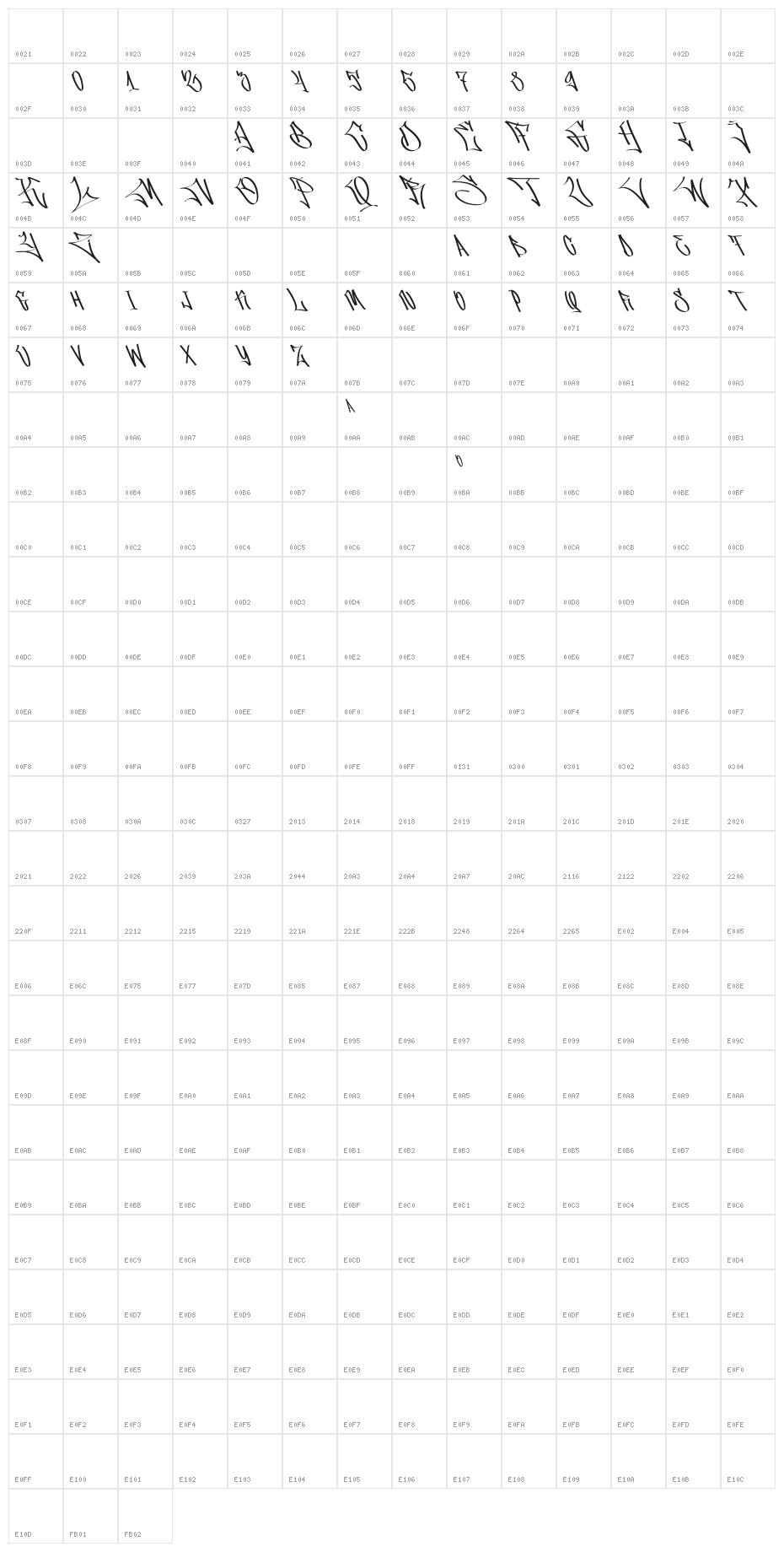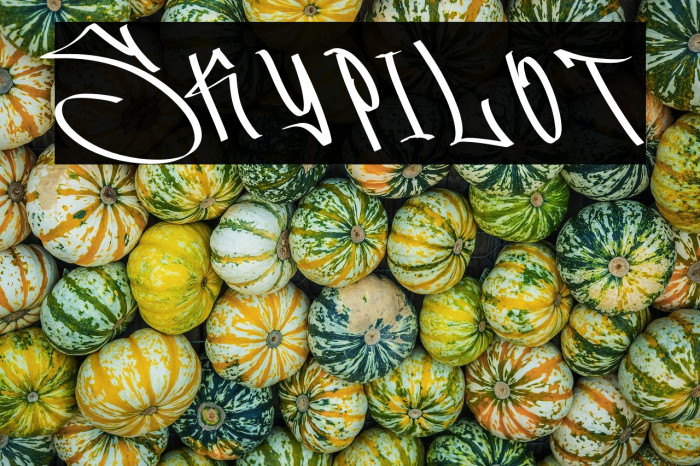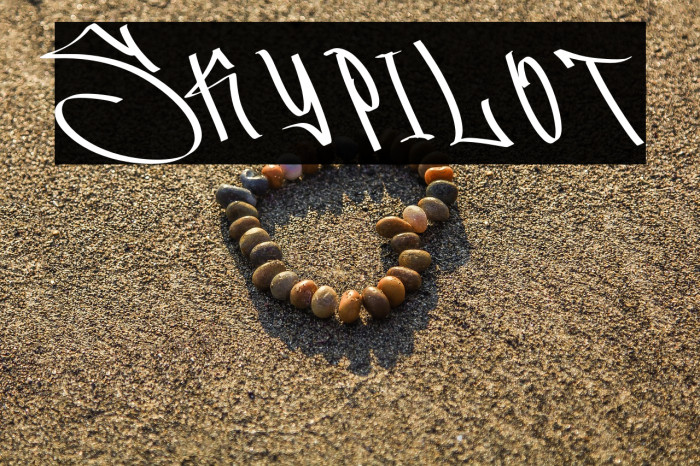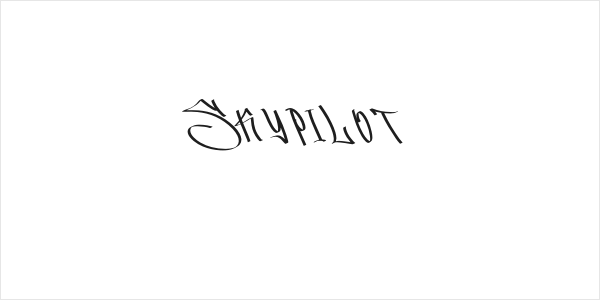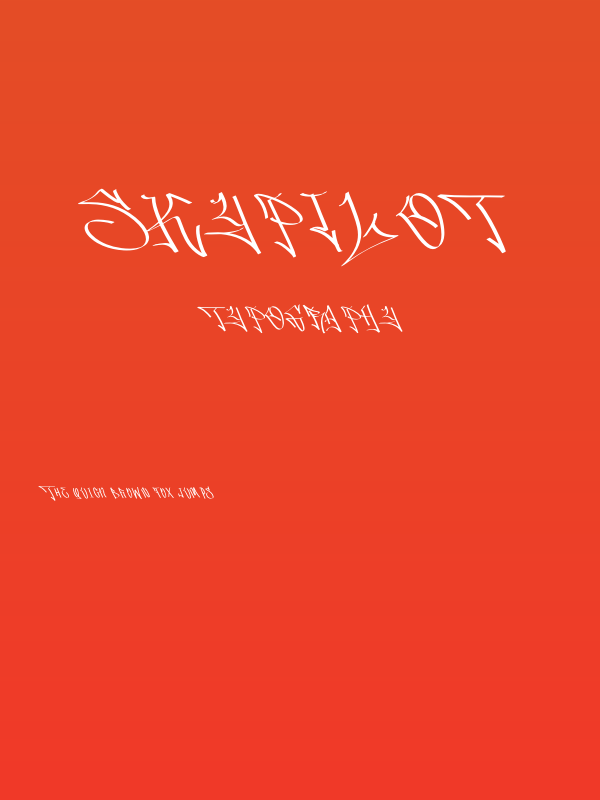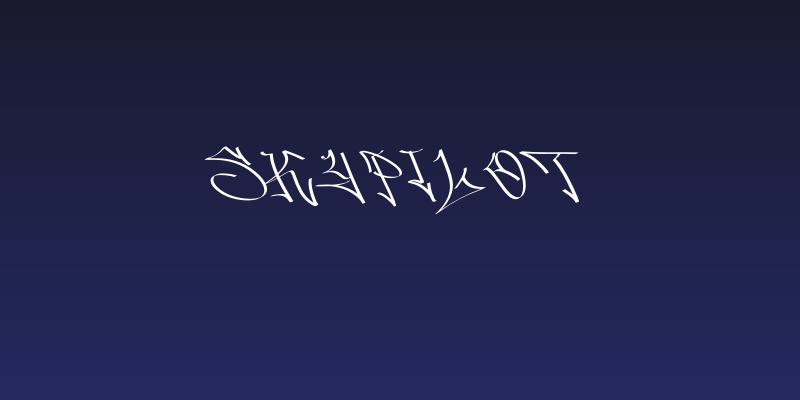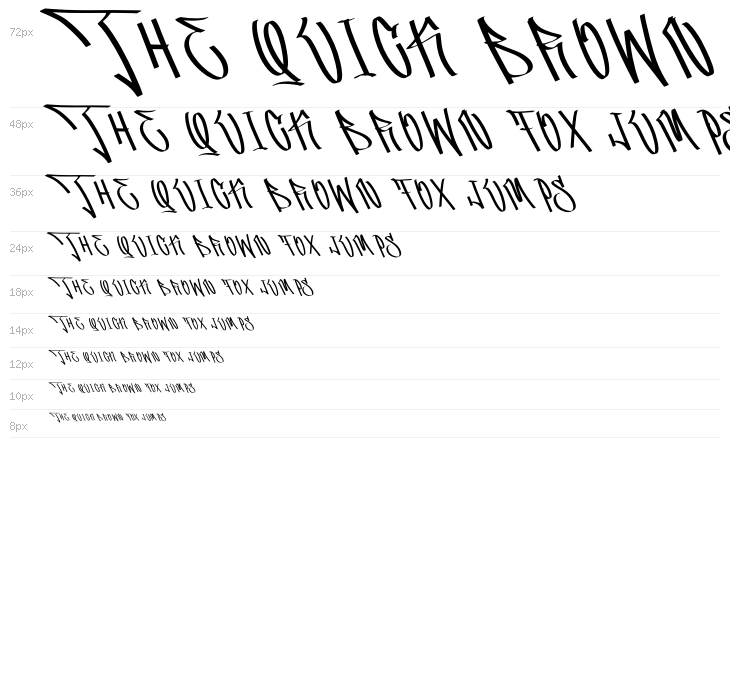
Skypilot Font
Skypilot Description
This font features a highly decorative and artistic style, characterized by sharp, angular lines and a dynamic flow. The uppercase letters are bold and striking, with unique embellishments that give each character a distinct personality. The lowercase letters maintain the same artistic flair, ensuring consistency throughout the typeface. Numbers and special characters are equally stylized, adding to the overall cohesive design. The font's intricate details and dramatic appearance make it ideal for projects that require a strong visual impact.
| Proposed Projects | Ideal for tattoo designs, album covers, posters, and branding that requires a bold and artistic touch. |